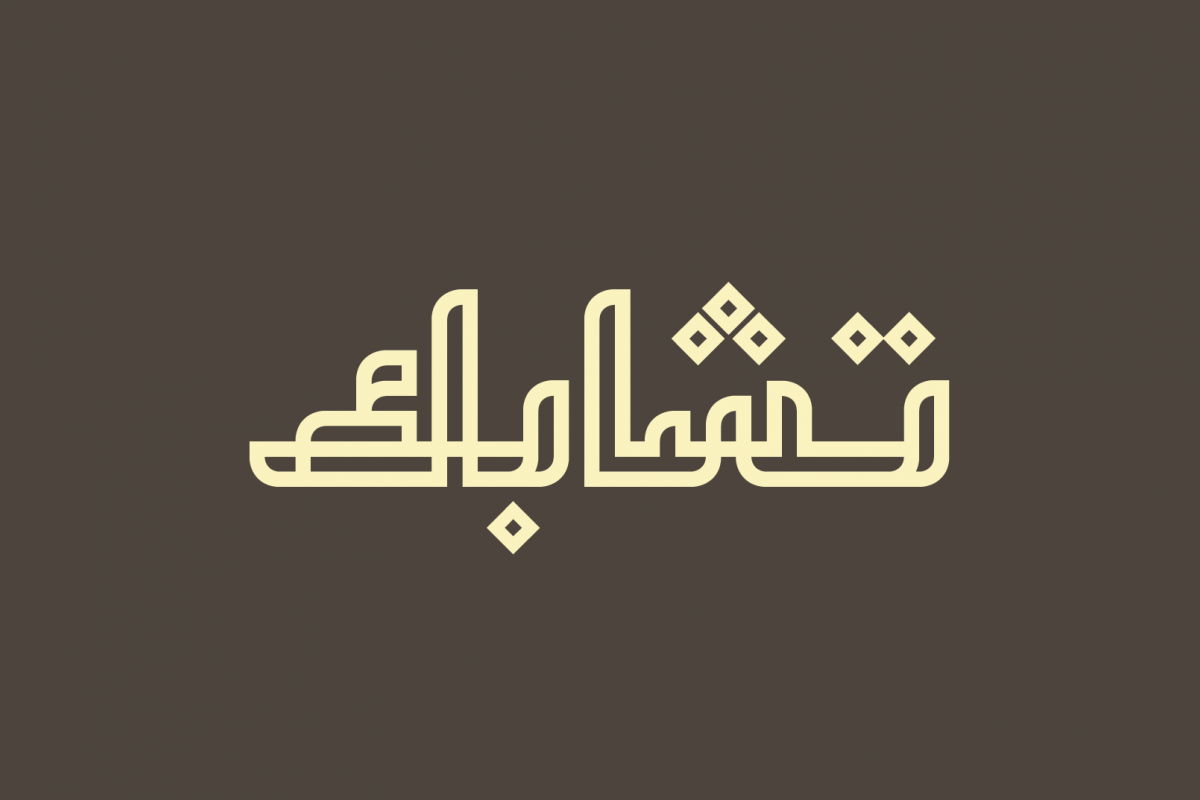
Tashabok - Arabic Font
Tashabok (the Arabic for ‘Overlapping’) is an Arabic display font with uniquely interwined hollow letterforms. It suits various range of creative projects including, web design, branding, advertising and typographic compositions. Tashabok supports Windows, Mac and mobile applications.